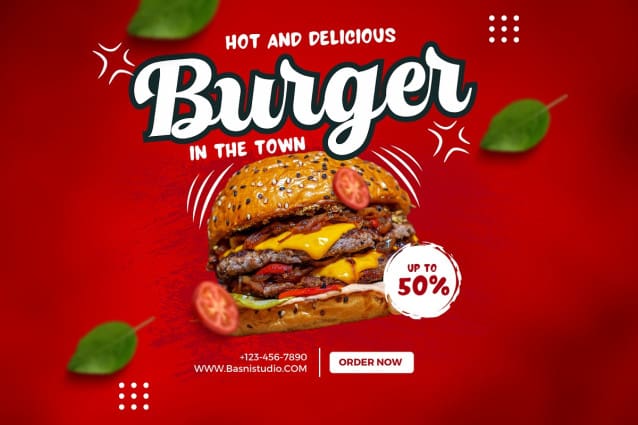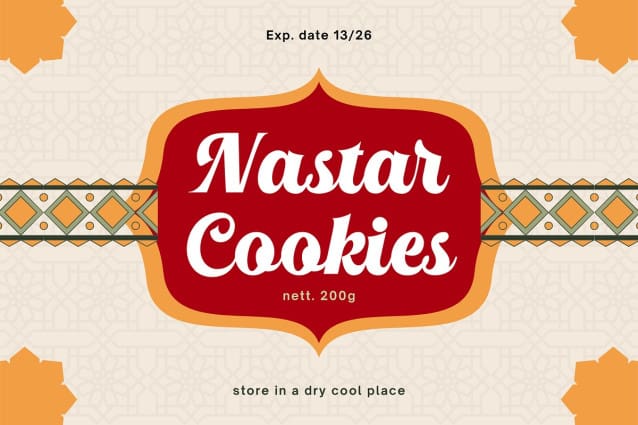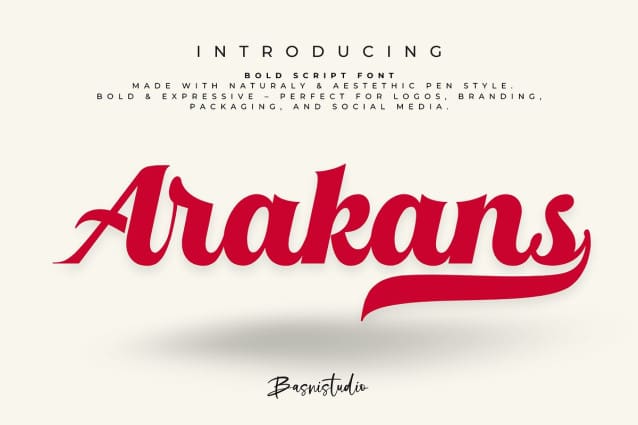
Arakans Font
Arakans Font, a Bold Calligraphy font designed for brands that demand attention. Transform your brand’s identity with the perfect blend of artistry and attitude.
Authentic Bold Modern Calligraphy Style – Every stroke exudes personality and fluid motion.
Bold & Expressive – Perfect for logos, branding, packaging, and social media.
Clean Brush Texture – A raw, organic feel that adds character and uniqueness.
Make your mark with a Bold calligraphy font that speaks with confidence. Create. Inspire. Stand out.